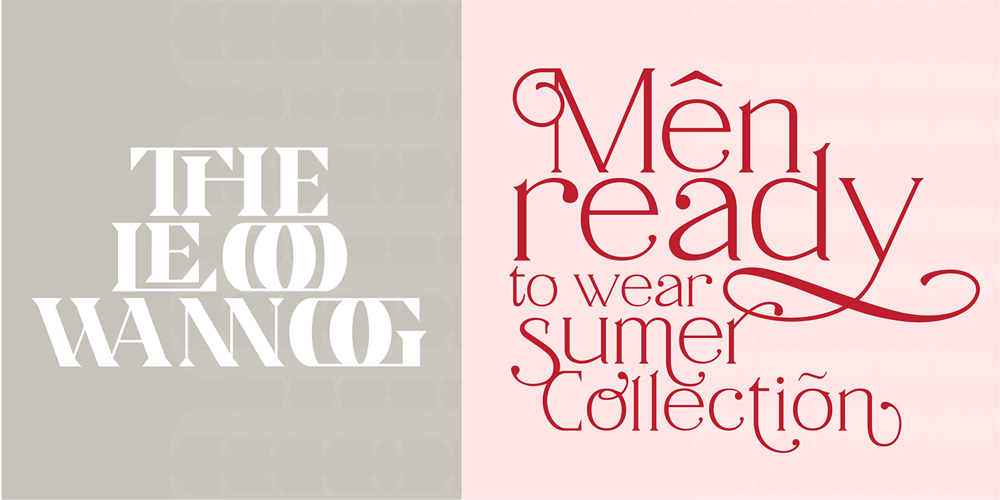
Horst More Font Family was designed by Mix Jpg and published by MIX.Jpg. Horst More contains 18 styles and family package options. Horst More is a retro soft serif typeface comprising 18 fonts. It can handle most typographic applications from branding to body copy with its range of weights and inherent legibility. Whatever you type will have a friendly message, but it really comes into its own when you start applying some of the additional ligatures and alternates that are built into this type family. You’ll soon be creating distinctive typographic compositions that are pleasing to the eye. There are 18 fonts, 9 weights altogether. It has an extensive character set that covers all Latin European languages.Key features: 9 weights in Roman and Italic Alternates Ligatures Thanks for visiting and purchasing my font!EkayasaMix.Jpg